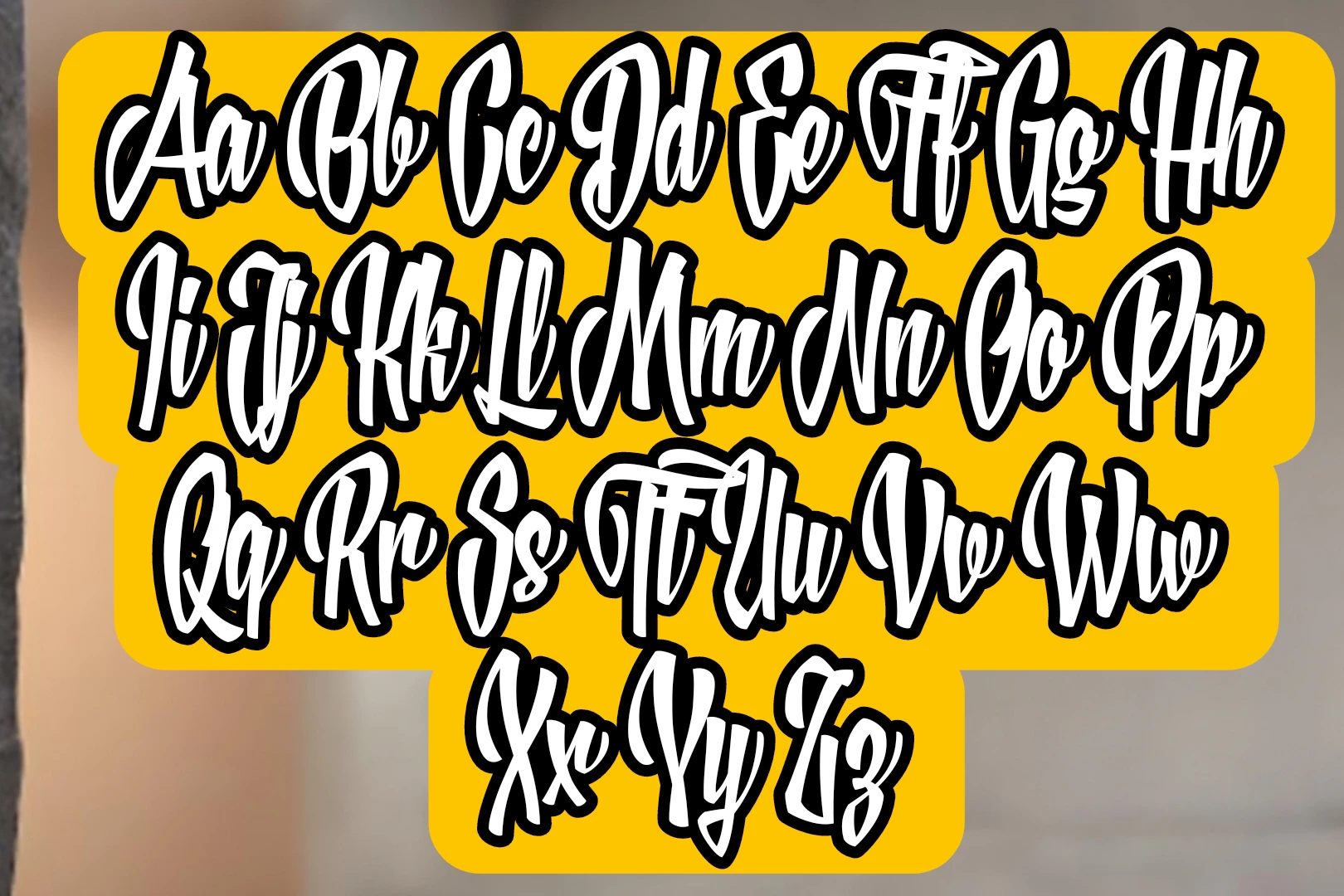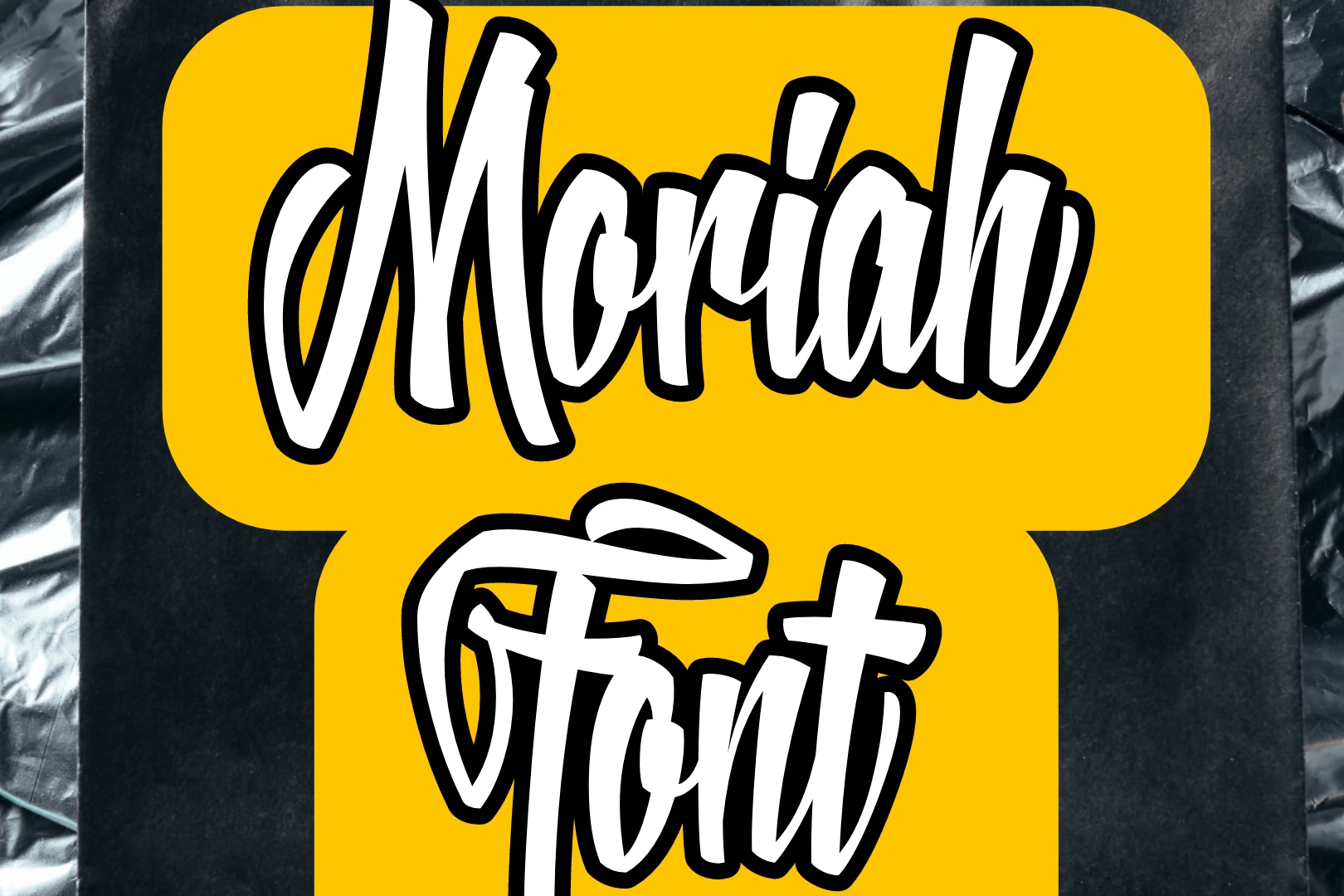
Moriah Font is a special and eye-catching style of writing that many designers and creative people really like. It has a fancy and elegant look with its beautiful calligraphy. Moriah Font uses graceful strokes and unique shapes for its letters, adding a bit of class to any design project. People love using this font because it makes things look more creative and fancy.
This font is made to be noticed. it mixes traditional calligraphy with modern design, creating a perfect balance. The little details and careful work that went into making this font give it a look that’s both classic and new. Moriah texture is like a versatile set of colors for designers, letting them add a unique touch and artistic style to their projects.
Whether it’s on paper or on a screen, it gives people the chance to be creative and make their writing look really refined. The closest texture of this font is sabor font. It has a neat and stunning texture look for the visitors and makes your project look more attractive.
Moriah Font is a special kind of writing style that looks elegant and unique, almost like script or calligraphy. People use it in different design projects, and there are tools online, like the Moriah texture generator, that help designers easily change and see how the font looks for their specific project.
If you’re doing graphic design on platforms like Canva, it is a great choice. It adds a touch of class to things like social media pictures, posters, or ads. Canva users can pick this font to make their designs look more creative and elegant because of the font’s beautiful lines and special letters.